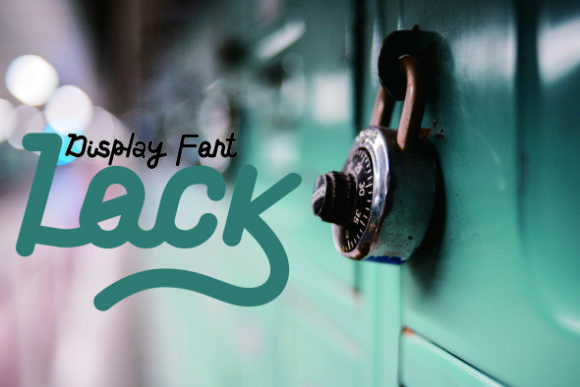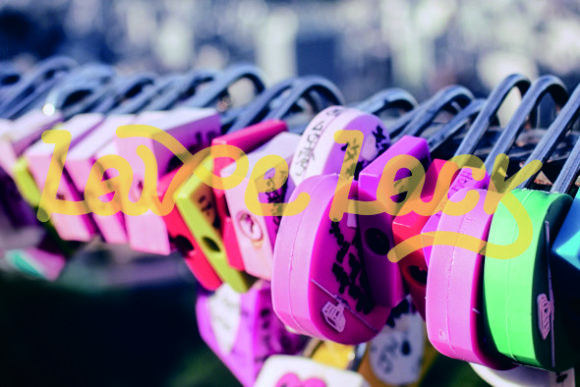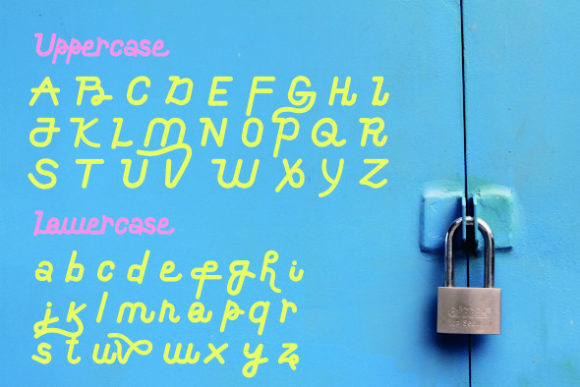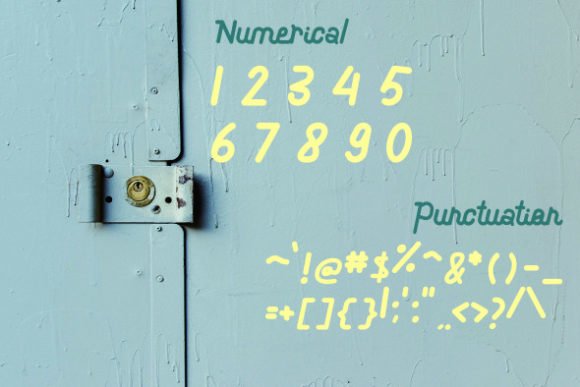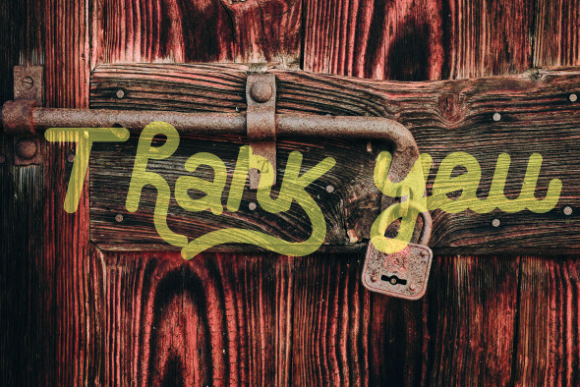
About The Lock Font
The Lock is a beautiful, well balanced and vintage styled script font. It is defined by smooth curves and is perfect for fashion branding or editorial designs. Add it confidently to your projects, and you will love the results.Â